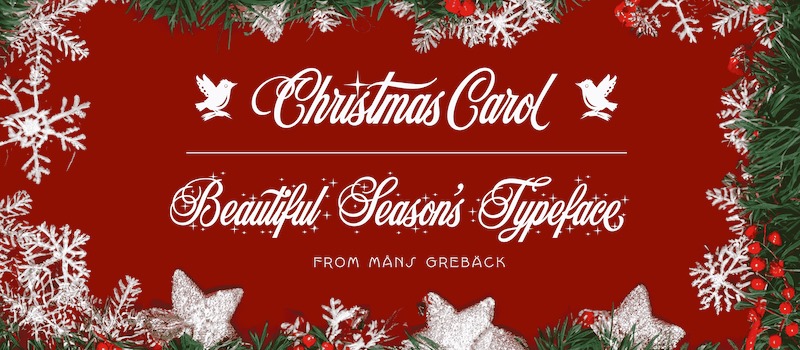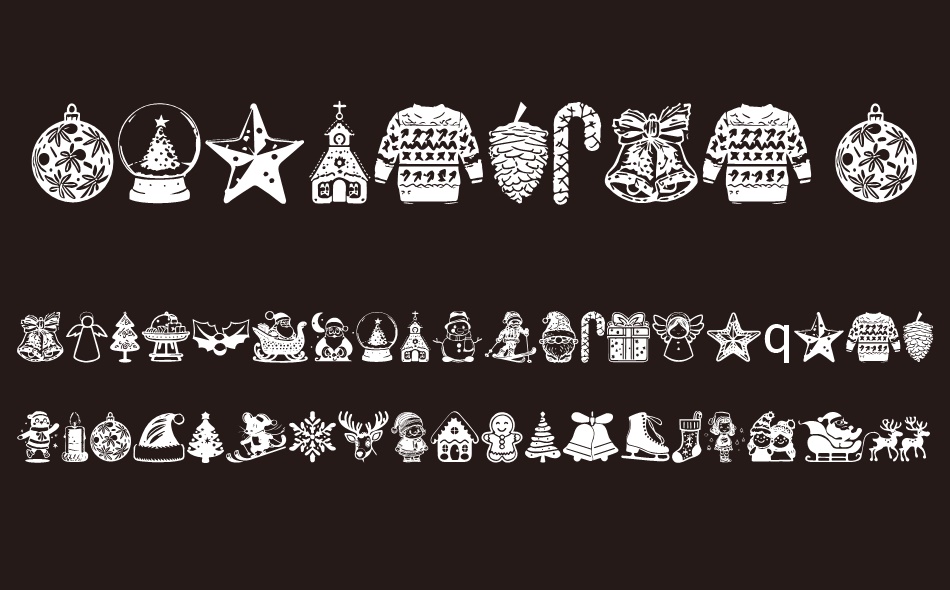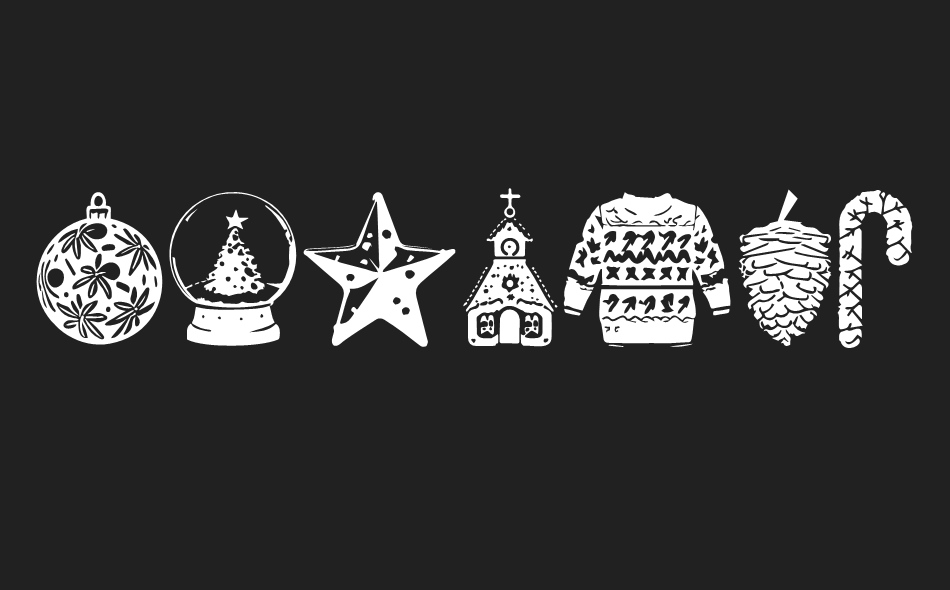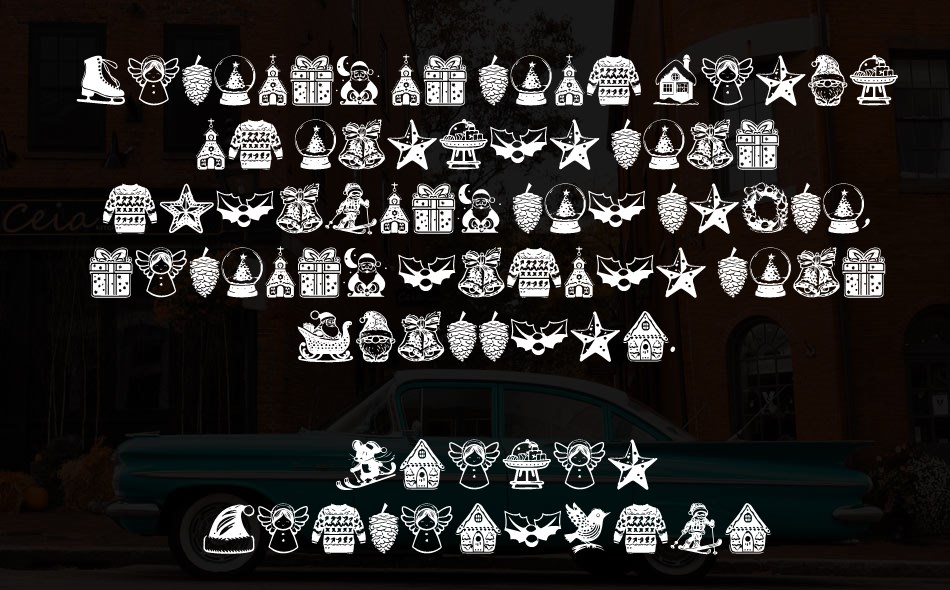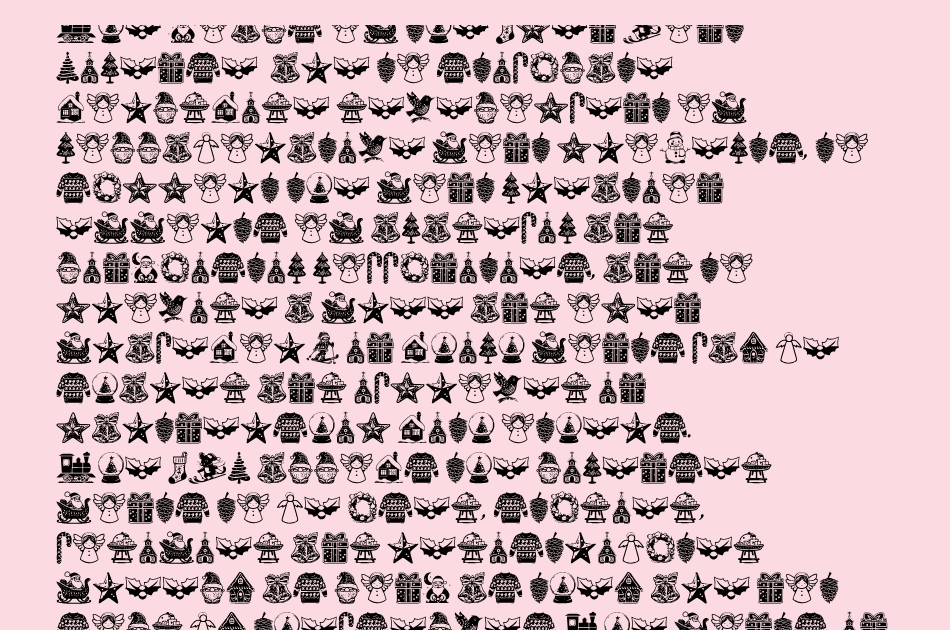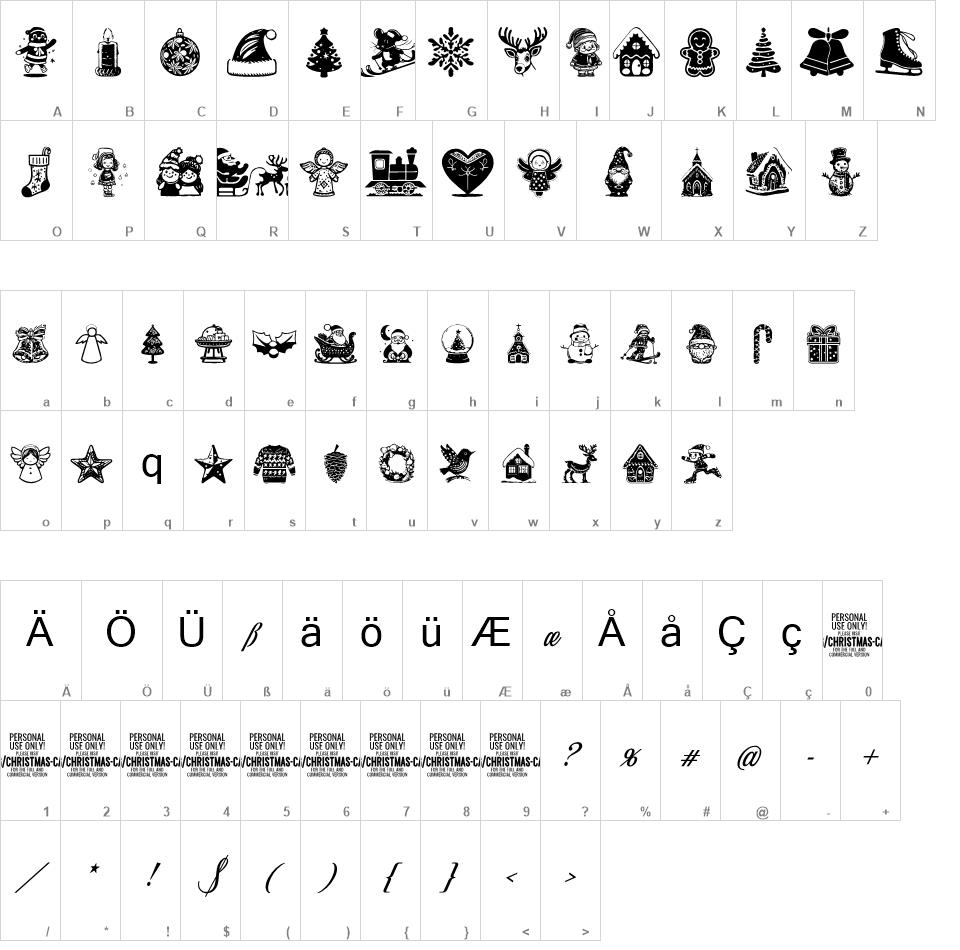
Christmas Carol font
Christmas Carol is a classic typeface that embraces the holiday spirit.
Infused with a touch of nostalgia, Christmas Carol wraps your words in the comfort of yuletide cheer.
Using the Star version, use parenthesis characters ( ) [ ] { } to make surrounding stars.
Example: (reindeer) [sleigh]
Use underscore _ to make a swash, or multiple underscores to make them longer.
Example: Santa Claus______
Christmas Carol is a classic typeface that embraces the holiday spirit.
The flowing script's formal nuances evoke the joyful melody of your favorite festive tunes, making it an ideal choice for capturing the essence of familiar warmth and merriment.
Infused with a touch of nostalgia, Christmas Carol brings a traditional yet beautiful aesthetic to your seasonal greetings and designs. Whether you're crafting invitations for a celebratory dinner or creating a banner for a winter wonderland event, this typeface wraps your words in the comfort of yuletide cheer.
Using the Star version, use parenthesis characters ( ) [ ] { } to make surrounding stars.
Example: (reindeer) [sleigh]
Use underscore _ to make a swash, or multiple underscores to make them longer.
Example: Santa Claus______
The Christmas Carol font family consists of four styles:
Regular Script, the decorated Star 1 and Star 2, as well as a Xmas symbol version.
Beyond its seasonal charm, Christmas Carol is crafted with precision and quality, offering a suite of OpenType features that include stylistic alternates, contextual ligatures, and additional flourishes, ensuring your creations are as unique as a snowflake. It supports a wide range of languages, covering the all Latin-based scripts, from the frosty tips of Scandinavia to the diverse cultures of Southeast Asia.
Designed by Mans Greback, a designer renowned for his dedication to craftsmanship and detail, Christmas Carol is more than a font—it's a celebration of the birth of Jesus Christ.